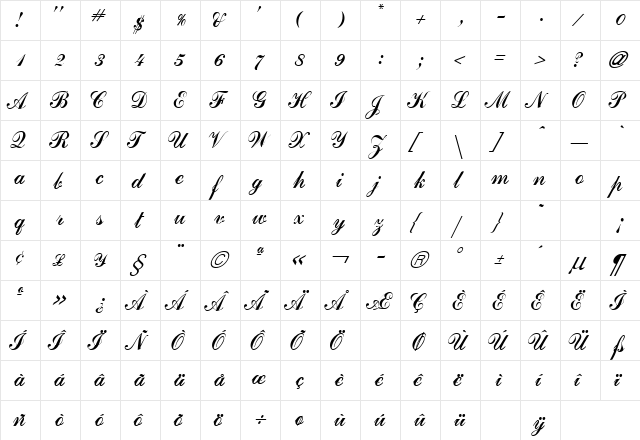
JournalScriptSSK Regular
Design Context for JournalScriptSSK Typeface
JournalScriptSSK brings a calligraphic fluidity to the page — its connecting strokes and expressive curves give it an unmistakably human quality.
Font Pairing: Combine JournalScriptSSK with a simple geometric sans for maximum contrast — the tension between flowing curves and clean structure is a classic typographic pairing.
Pro Tip: Pair JournalScriptSSK with a clean sans-serif for supporting text. The contrast between fluid script and geometric structure creates an elegant typographic hierarchy.